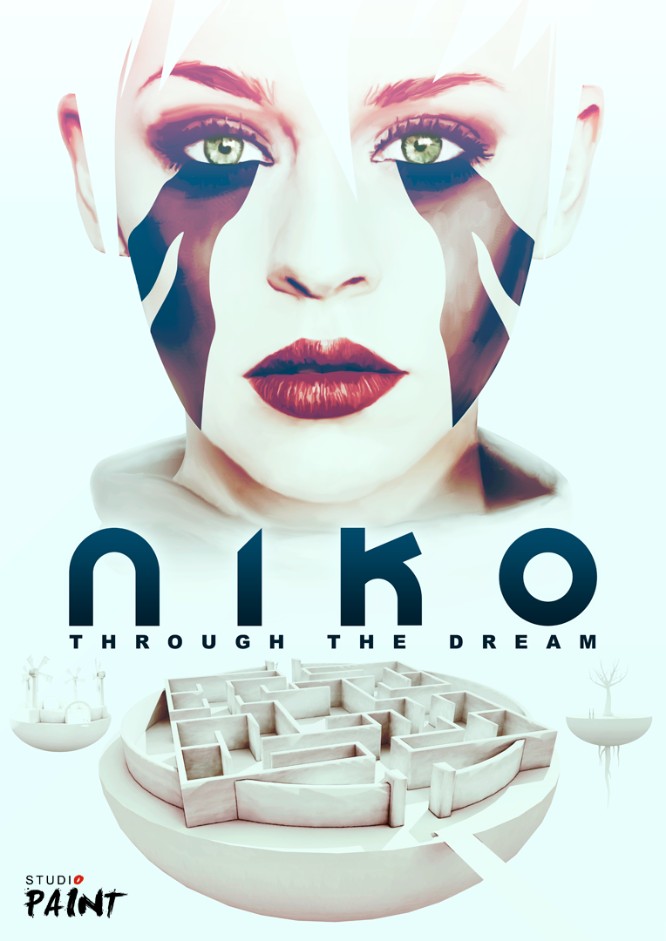
Niko Through The Dream Font
The font used for the Niko Through The Dream logo is created by Alan Brown Design and can be downloaded from the Font Used Section. Arial Black, a neo-grotesque sans-serif typeface created by Robin Nicholas and Patricia Saunders, is used for the text "Through The Dream."